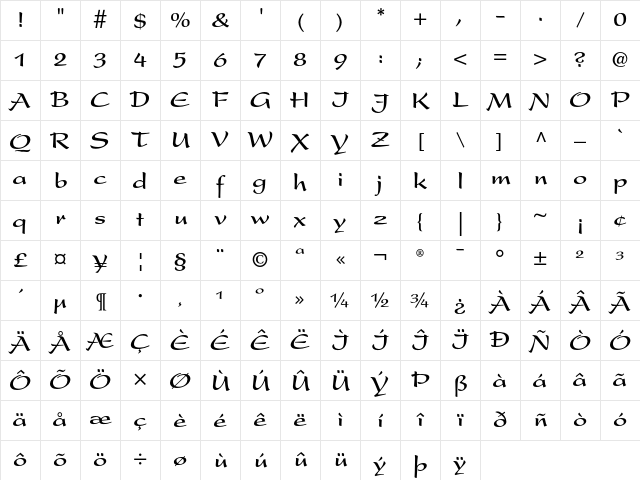
Present Bold Free Font
Present Bold
Design Context for Present
Present is a composed and adaptable typeface that performs quietly and consistently across a wide range of design contexts. Its bold stroke weight gives it real presence on the page.